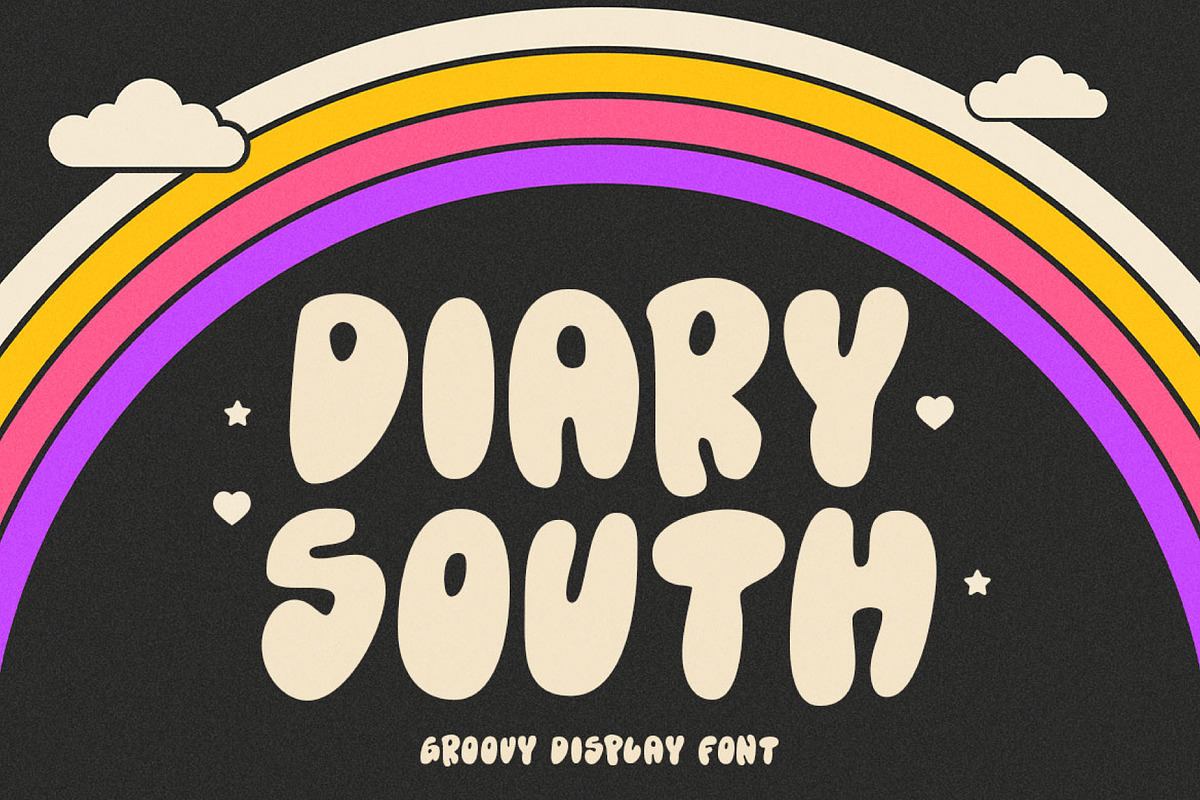
Diary South - Groovy Display Font Free Download
Diary South - Groovy Display Font Free Download is a vibrant and retro-inspired typeface bursting with personality. With bold curves, playful letterforms, and a ‘70s-style vibe, this font is perfect for posters, music covers, social media graphics, and funky branding projects. It brings that nostalgic groove into modern design with flair and fun.
When you use the Diary South - Groovy Display Font Free Download, you're infusing your work with energy and vintage charm. Whether you're designing for fashion, lifestyle, or creative events, this font adds a stylish pop that grabs attention and leaves a lasting impression. Its bubbly, dynamic look is sure to make your visuals stand out.